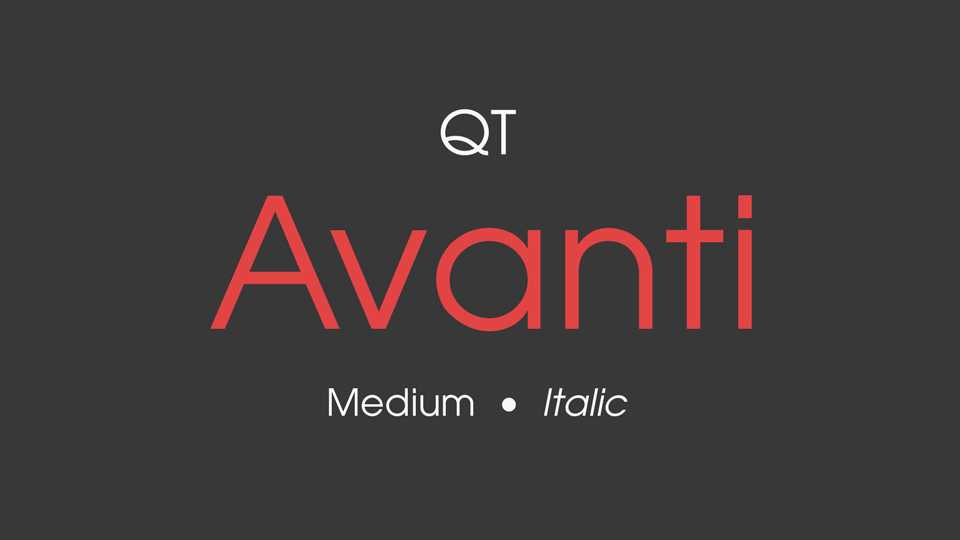
Download Avanti typeface, a modern sans serif font family that will bring supreme geometric perfection to any piece of typography. Avanti based on the Avant Garde font.